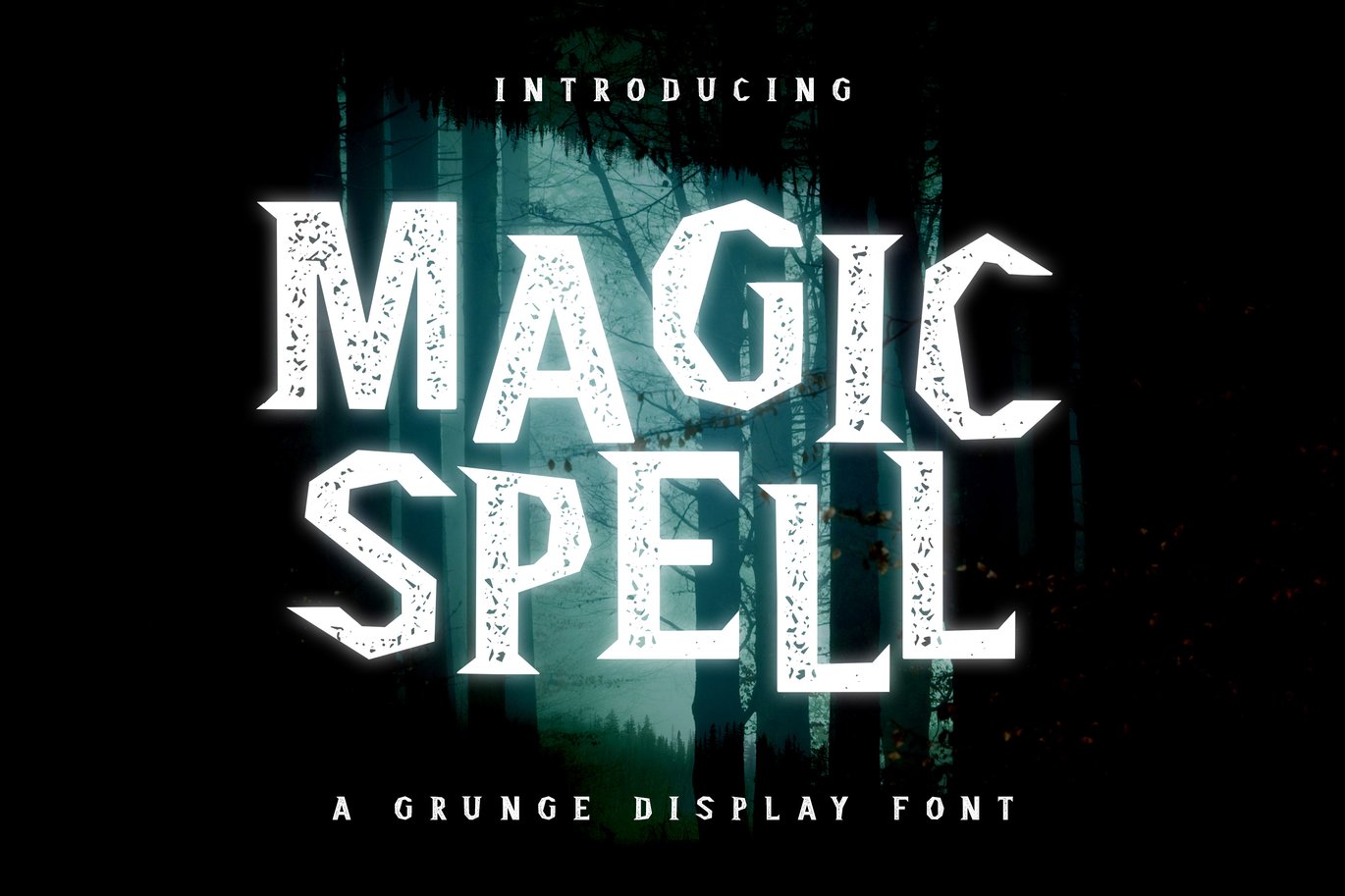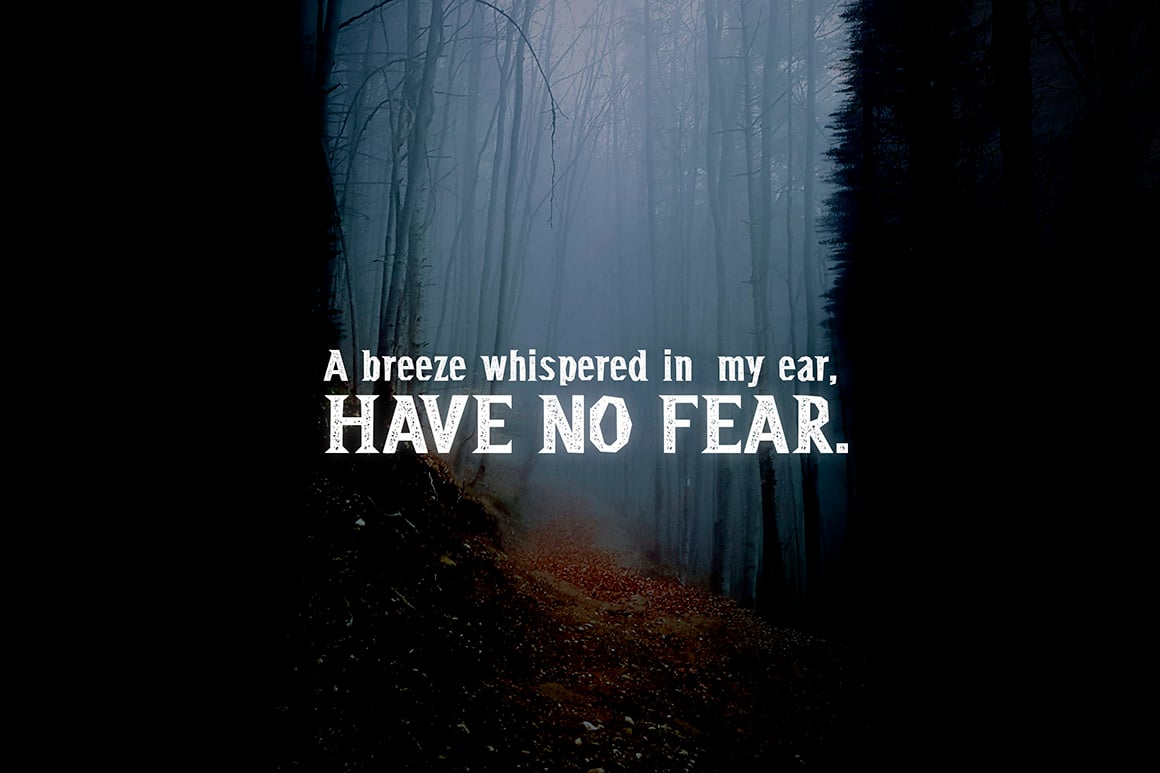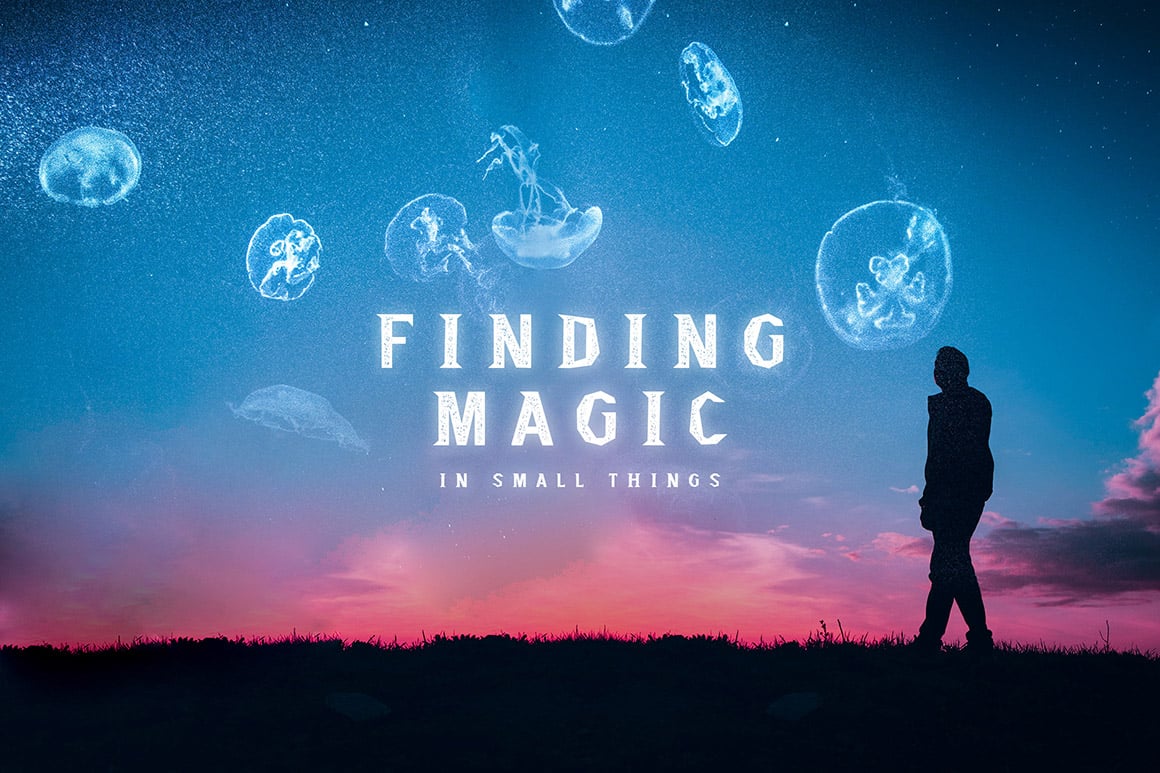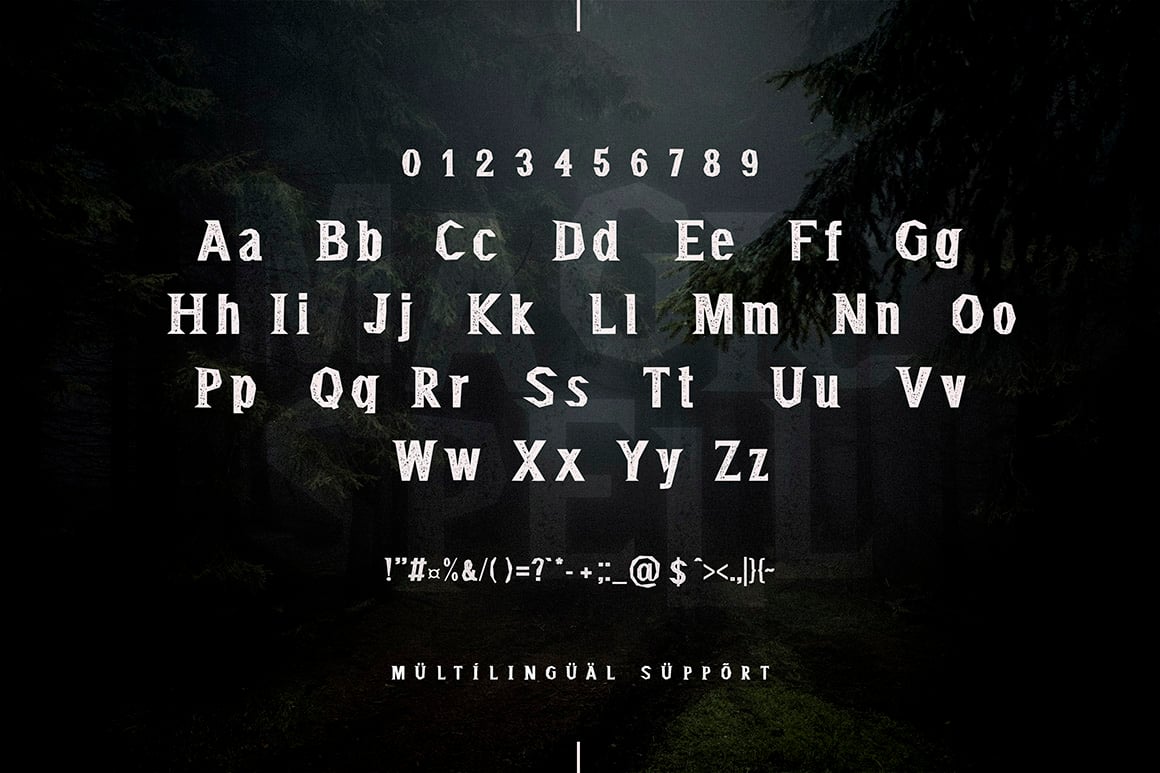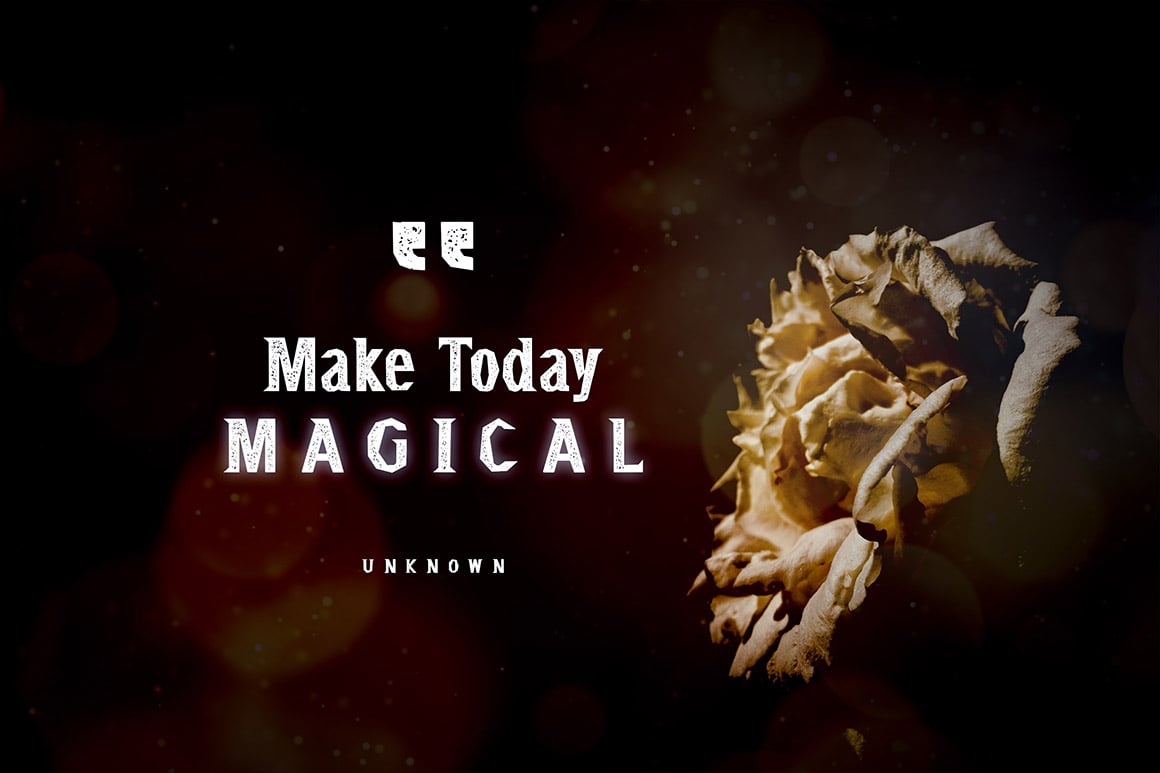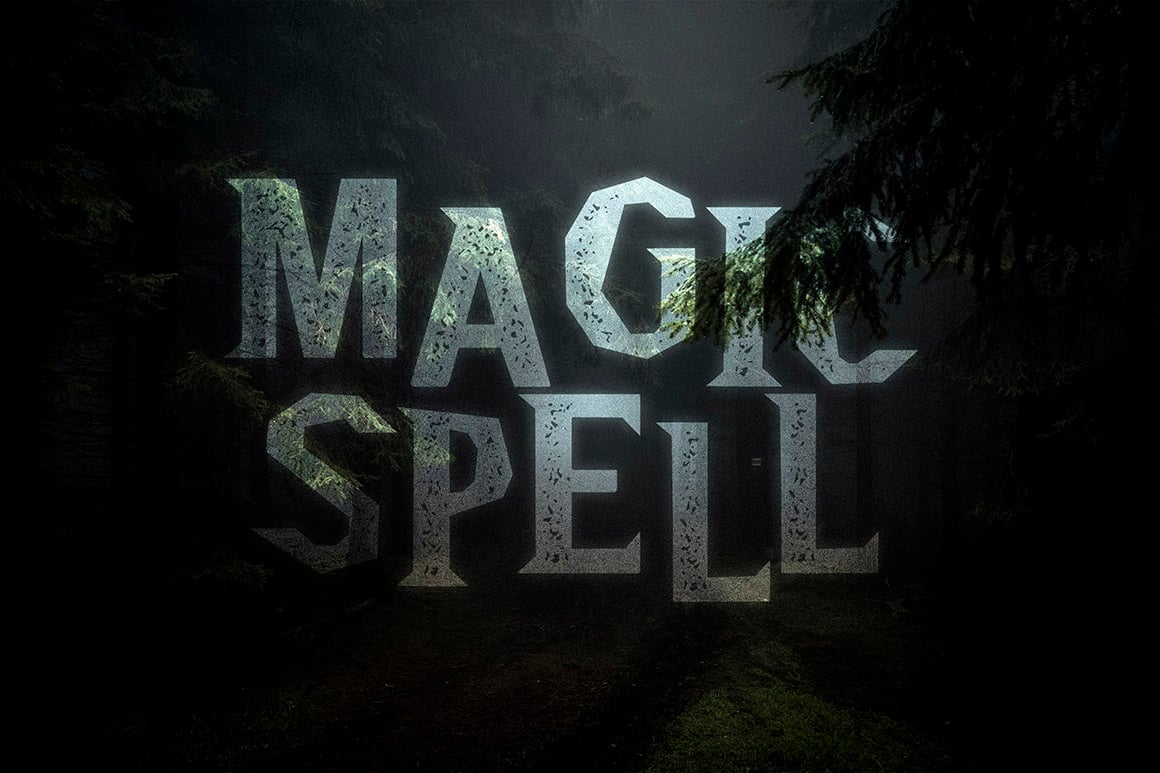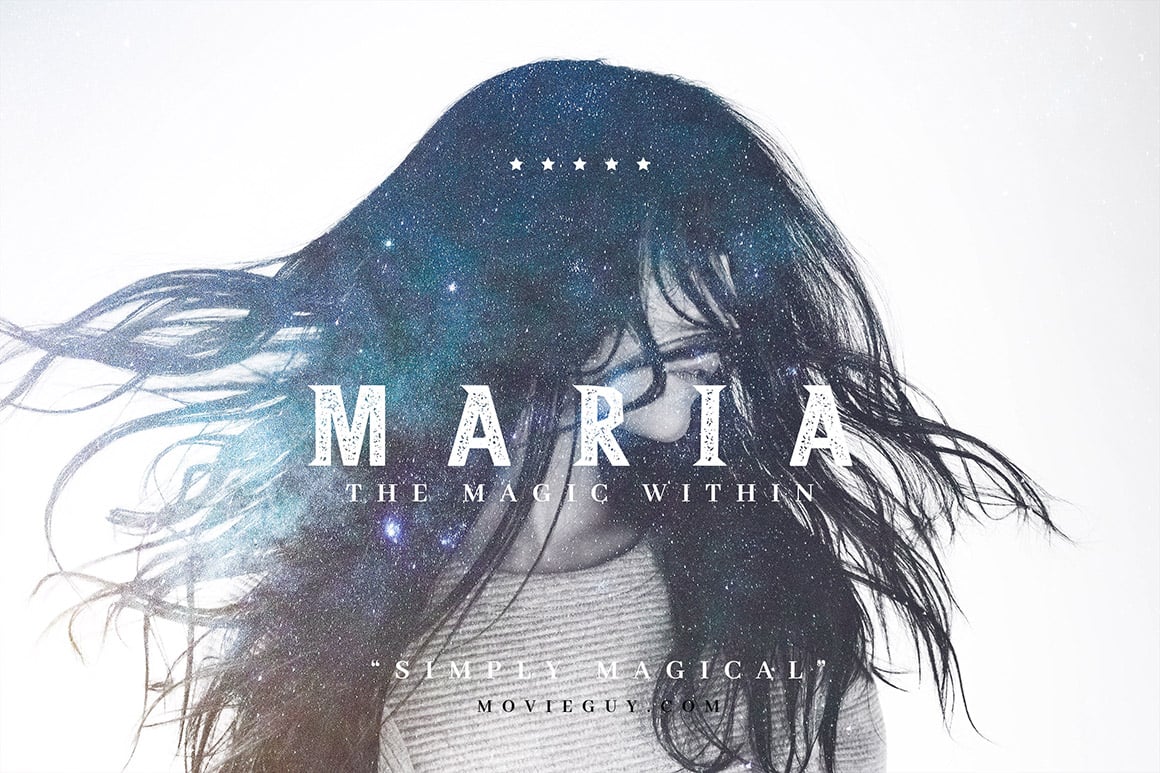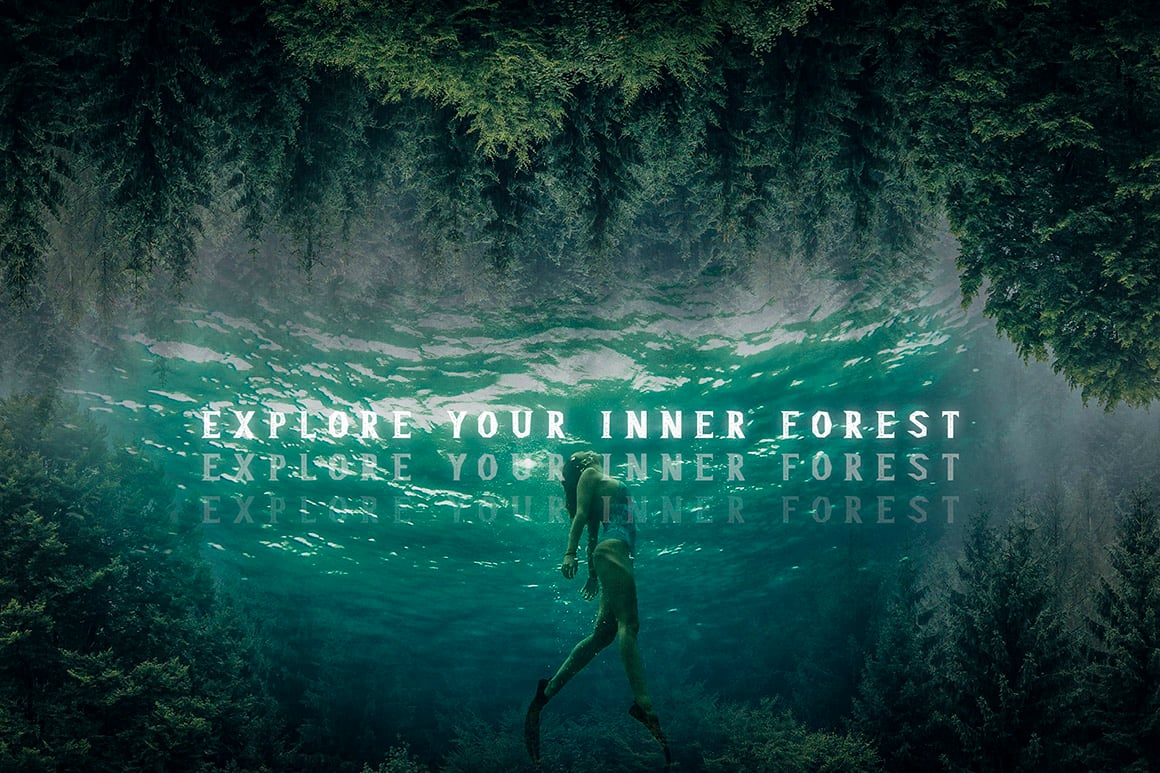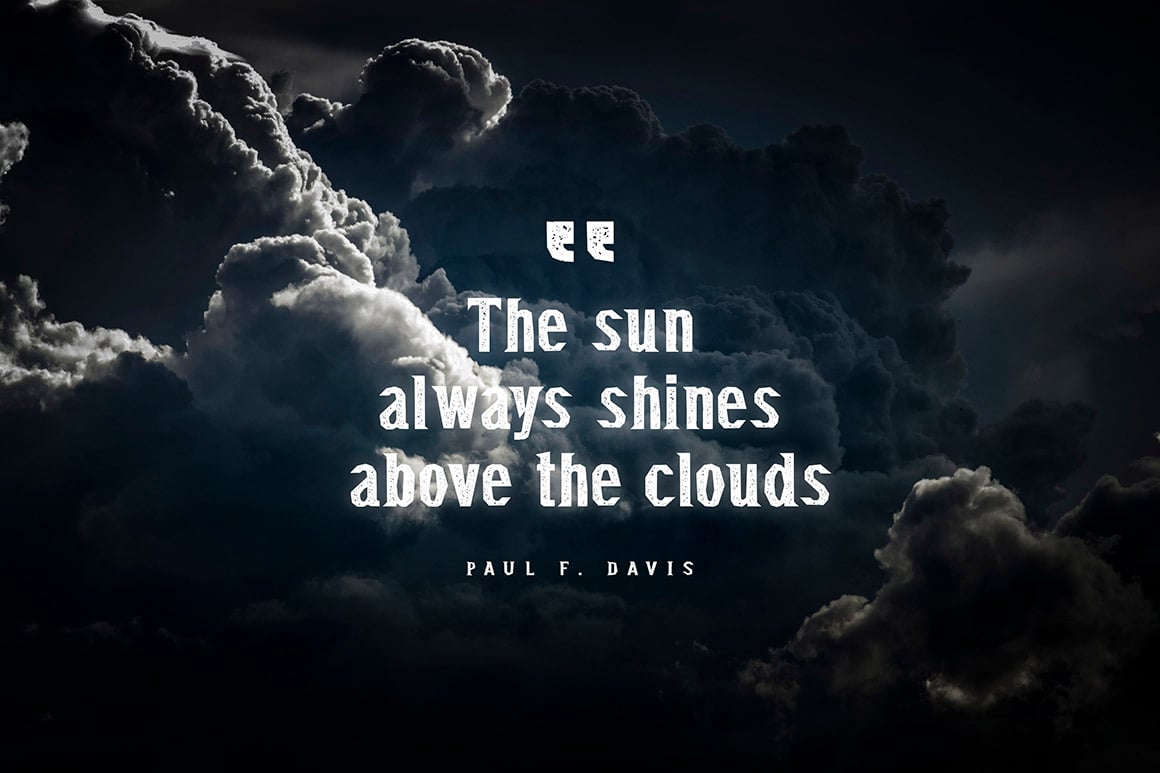
Magic Spell – Magical Grunge Display Font
Magic Spell is a magical grunge display font with a rustic and rough texture and sharp corners.
This a perfect display font to complement a classic sans-serif or serif font and can be used in a variety of different scenarios.
For example, create logos, art prints, stylish quotes, blog graphics and so much more!
Use it for anything magic, esoteric and halloween related!